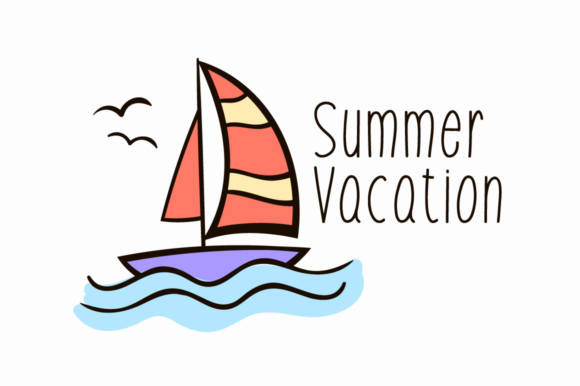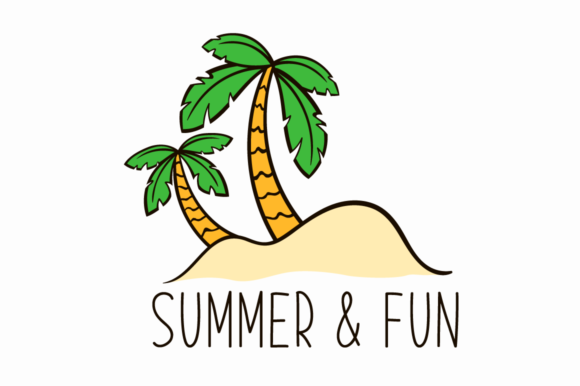
Summer Splendor Font
db-ku.com - Script & Handwritten -- Summer Splendor is a brand new handwritten font. Summer Splendor is perfectly suited for stationery, logos, t-shirt, paper, print design, website header, photo frame, flyer, music cover, poster, image slider, and much more.